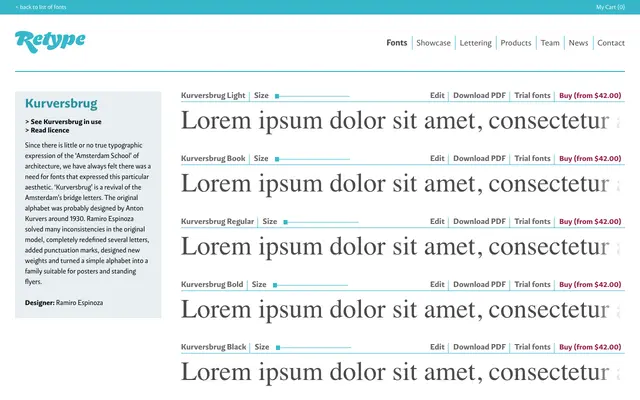
Kurversbrug
A display family with six conventional weights from Light to Fat, rounded out by a Stencil variant for strong typographic contrast.
Kurversbrug spans an unusually wide weight range, from Light through Book, Regular, Bold and Black to the heaviest Fat cut, giving designers considerable flexibility across print and screen applications. A dedicated Stencil style extends the family into more expressive territory, suited to poster, signage or identity work that calls for a harder-edged character. The family is available from Retype starting at $42.
The family includes a dedicated Stencil variant alongside conventional weight grades, and the overall weight range from Light to Fat suggests a display-oriented design built for strong visual presence at larger sizes.